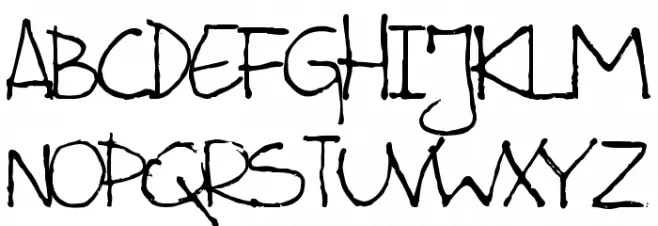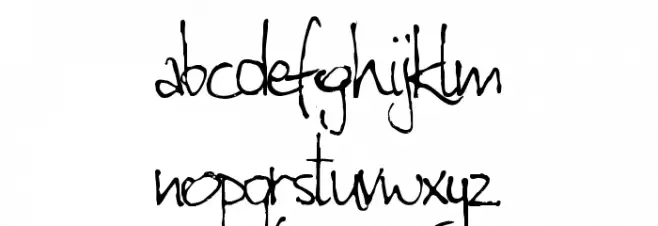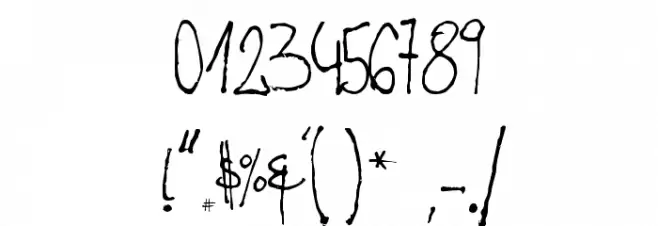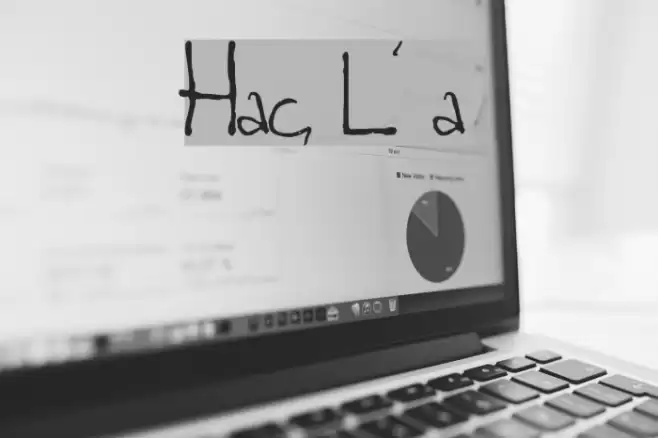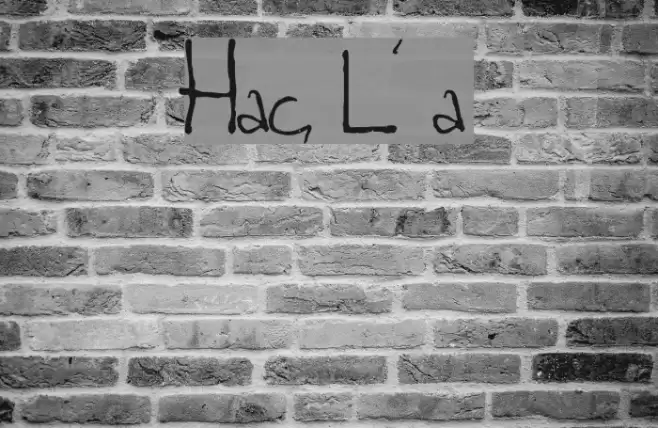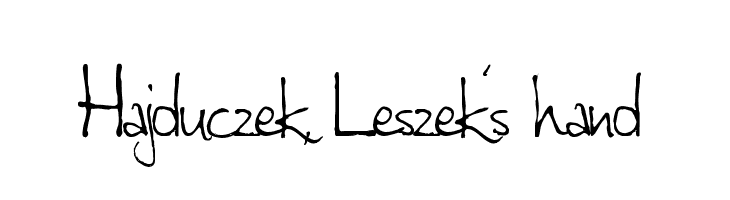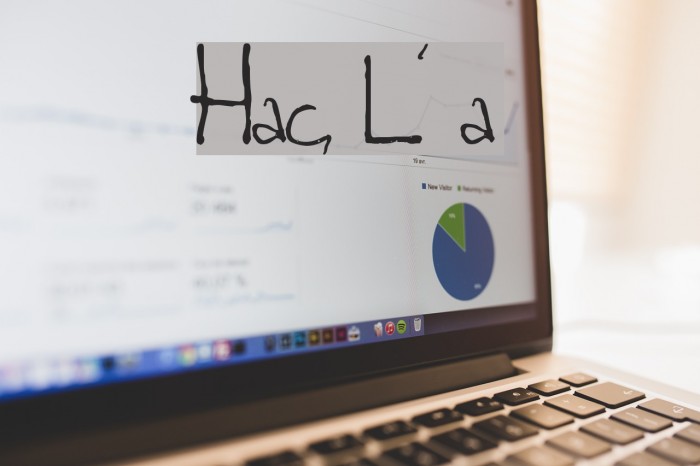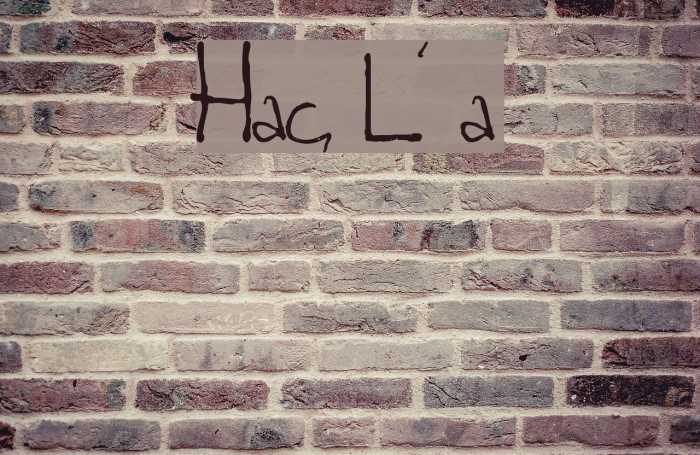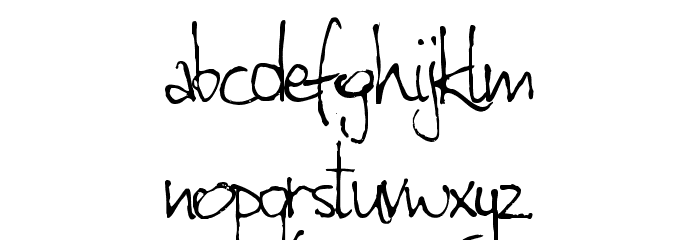
Hajduczek, Leszek's hand
This font exhibits a unique handwritten style, characterized by its irregular and organic strokes that mimic the appearance of ink on paper. The letters are slightly uneven, giving a personal and informal touch. The uppercase characters are bold and prominent, while the lowercase letters maintain a consistent flow with a slightly narrower form. Numbers and special characters follow the same handwritten aesthetic, adding to the cohesive look. The overall design is reminiscent of casual handwriting, making it suitable for projects that require a personal or artistic flair.
A handwritten font with an organic, casual style.
- Proposed Projects: Ideal for personal notes, artistic projects, greeting cards, and informal branding.
- Overall Style: Casual, Artistic
- Use Case: Logos, Greeting cards, Personal notes